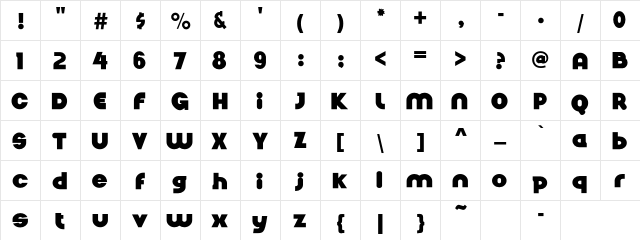
Nickel Bumpy created using FontCreator 6.5 from High-Logic.comNickelBumpy Regular
Design Context for Nickel Bumpy created using FontCreator 6.5 from High-Logic.comNickelBumpy Typeface
Nickel Bumpy created using FontCreator 6.5 from High-Logic.comNickelBumpy takes a measured approach to typography — its balanced proportions and neutral character make it a reliable workhorse for both digital and print work.